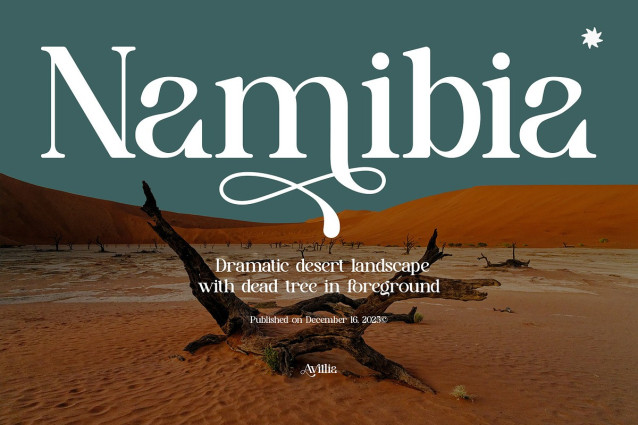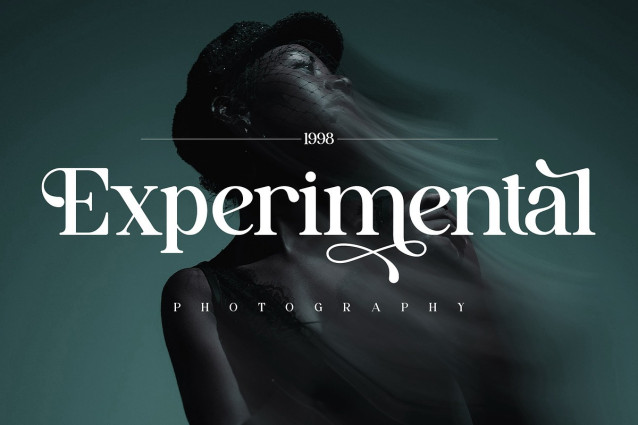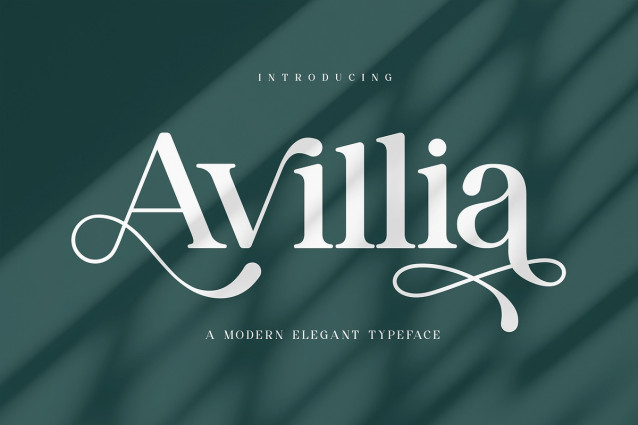
Avillia Font
Avillia Font Stylish Ligature Typeface, inspired by the famous minimalist logo perfect for the purposes of designing templates, brochures, videos, advertising branding, logos and more.